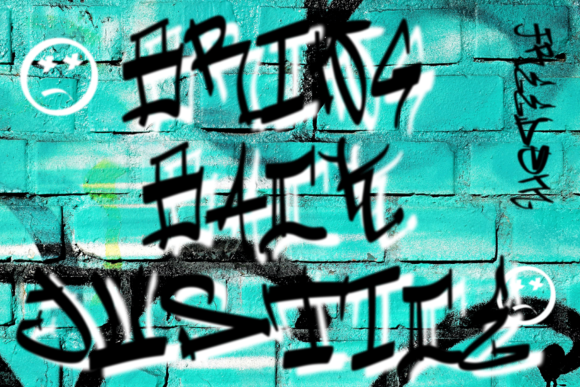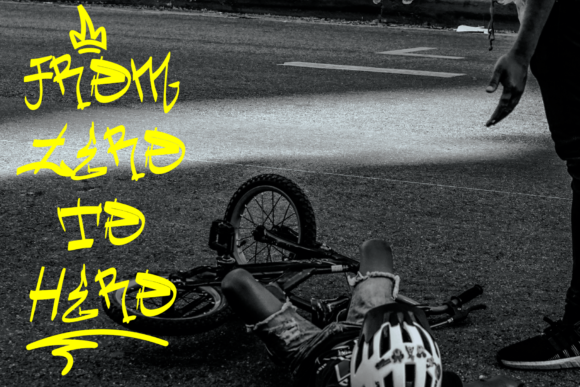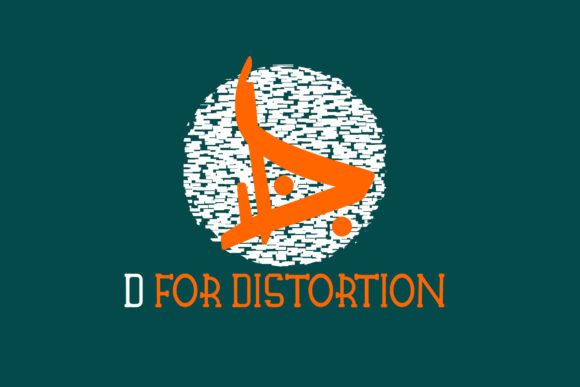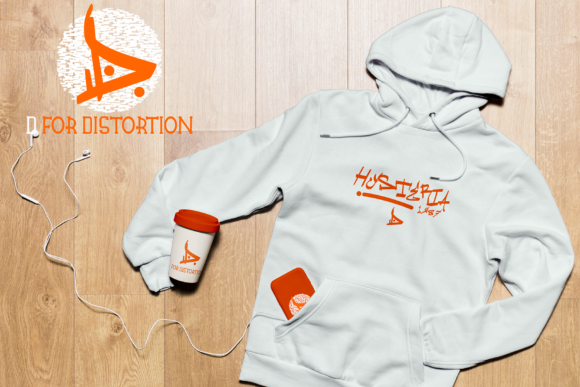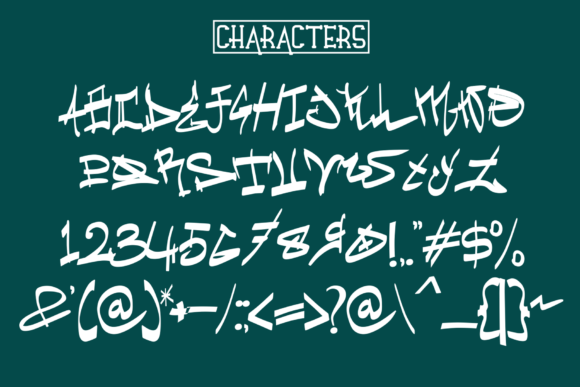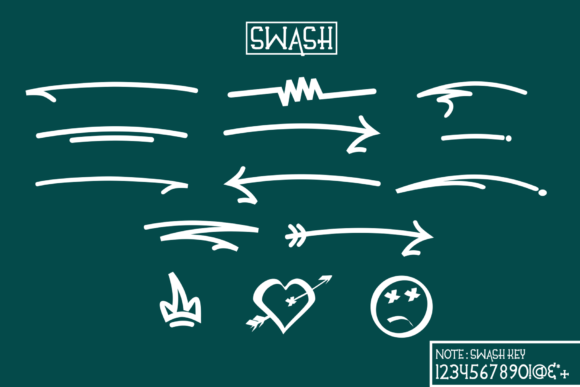
Benedictos Font: Elevate Your Designs with a Dramatic Urban Twist
In the world of typography, fonts play a crucial role in shaping the visual identity of a design. Whether you’re a seasoned designer, a crafty DIY enthusiast, or a social media influencer, finding the perfect font can make all the difference. If you’re on the hunt for a typeface that exudes urban grit and sophistication, look no further than Benedictos Font. This dramatic display font is about to become your new obsession, and for good reason.
The Urban Edge of Benedictos Font
Benedictos Font boasts an unmistakable urban style that’s perfect for designers looking to add a touch of edginess to their work. Its dramatic flair makes it an excellent choice for projects that demand attention, from bold advertising campaigns to striking social media graphics. The font’s unique character is defined by its sharp lines, angular shapes, and a certain rugged charm that’s hard to ignore.
One of the standout features of Benedictos Font is its incredibly versatile feel. This font isn’t just limited to one or two specific design applications; it can be used across a wide range of projects. Whether you’re working on:
- Advertising and marketing campaigns
Benedictos Font adapts seamlessly, ensuring your designs always look cohesive and visually appealing.
Why Designers and Crafters Love Benedictos Font
So, what makes Benedictos Font a favorite among designers and crafters? Here are a few reasons:
- Unique Aesthetic: In a sea of similar fonts, Benedictos stands out with its distinctive urban style.
- Easy to Read: Despite its dramatic flair, the font remains highly legible, making it perfect for both headlines and body text.
- Customizable: With a range of weights and styles available, you can tailor Benedictos to fit your design needs.
How to Get the Most Out of Benedictos Font
To truly fall in love with Benedictos Font and make the most out of its capabilities, consider the following tips:
- Experiment with Weights: Play around with different weights to add depth and hierarchy to your designs.
- Mix and Match: Combine Benedictos with other fonts for a unique, layered look.
- Play with Colors: The urban feel of Benedictos pairs well with bold, vibrant colors.
- Utilize Ligatures: Take advantage of the font’s ligatures for an extra touch of sophistication.
Benedictos Font is more than just a typeface; it’s a design statement. Its dramatic display and urban style make it an invaluable tool for anyone looking to elevate their designs. Whether you’re crafting a brand identity, creating art, or simply expressing yourself through design, Benedictos offers the versatility and aesthetic appeal you need. So, fall in love with its incredibly versatile feel and use it to create spectacular designs that leave a lasting impression.